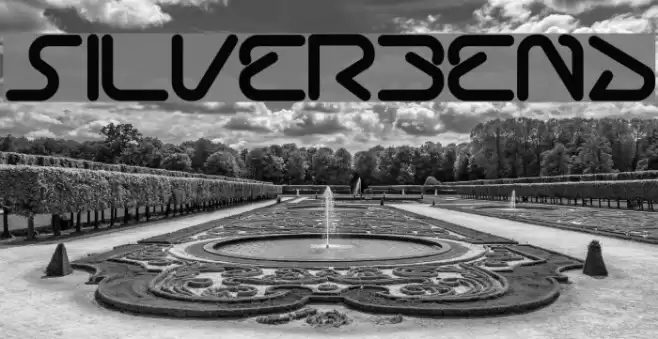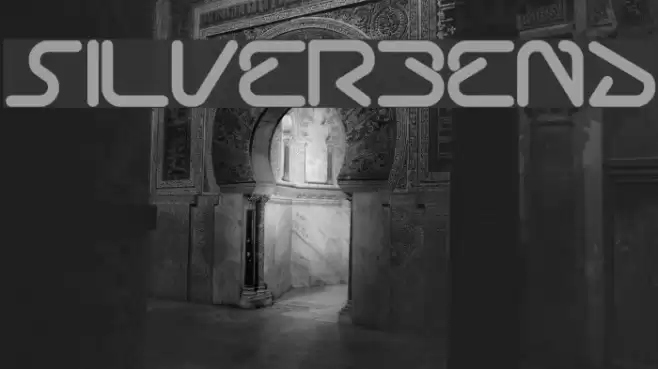
silverbend Font
silverbend Description
This font features a futuristic and geometric design with rounded edges and a unique, stencil-like appearance. The characters are constructed with bold, continuous lines that create a sense of movement and modernity. The uppercase and lowercase letters share a consistent style, emphasizing a cohesive and streamlined look. The numbers and special characters maintain the same aesthetic, ensuring uniformity across all glyphs. This font's distinct style makes it stand out, offering a contemporary and innovative feel.
A futuristic, geometric font with rounded edges and a stencil-like design from Uncategorized fonts.
- Proposed Projects: Ideal for technology branding, sci-fi themed projects, modern posters, and innovative product packaging.